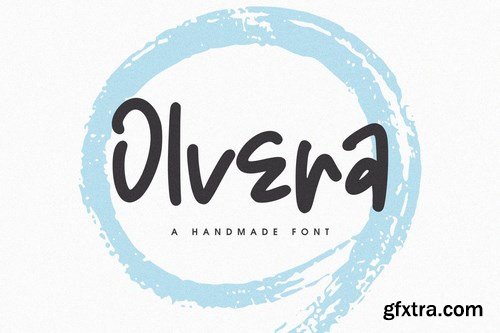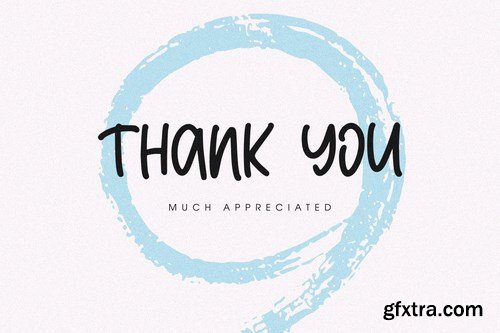
Olvera - Handmade Font, every single letter has been carefully crafted to make your text looks beautiful. it's perfect for logos, name cards, magazine layouts, invitations, headers, or even large-scale artwork.